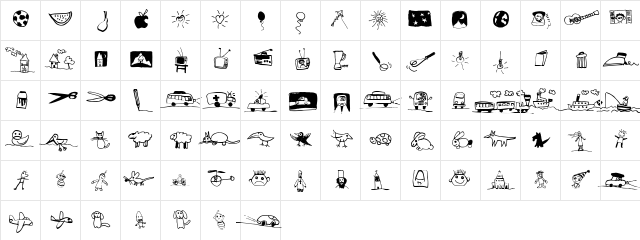
PF Kidstuff Regular
| Foundry | Parachute蠗orldwide |
| Designer | Alexandros Papalexis |
Design Context for PF Kidstuff Typeface
PF Kidstuff has an approachable, lighthearted character — its loose, expressive forms are well-suited to children's content, casual branding, and fun-first design.
Great for children's books, toy packaging, family event branding, and casual consumer-facing design.
Font Pairing: Pairs well with a rounded or humanist sans for body copy, maintaining the friendly tone without relying on PF Kidstuff to carry extended reading.
Pro Tip: Avoid using PF Kidstuff for long passages of text — it works best for headlines, labels, and short calls to action.